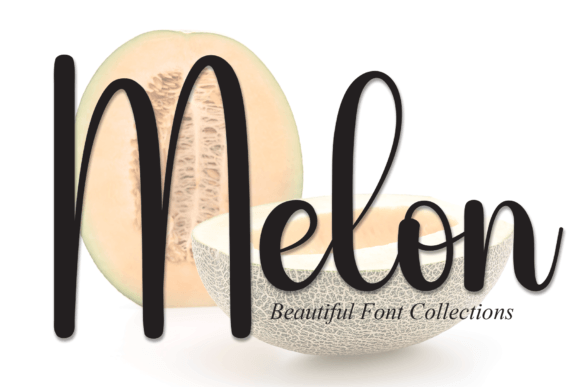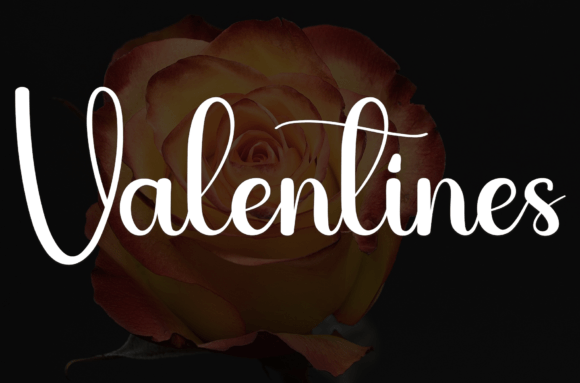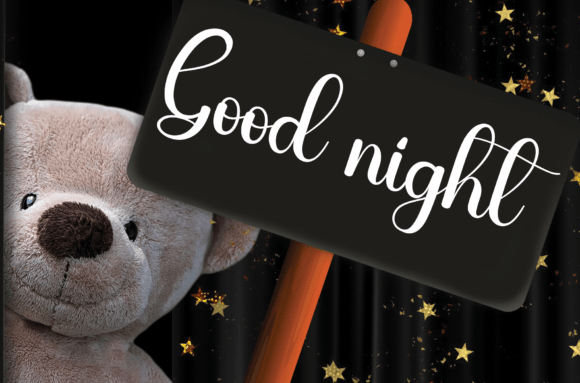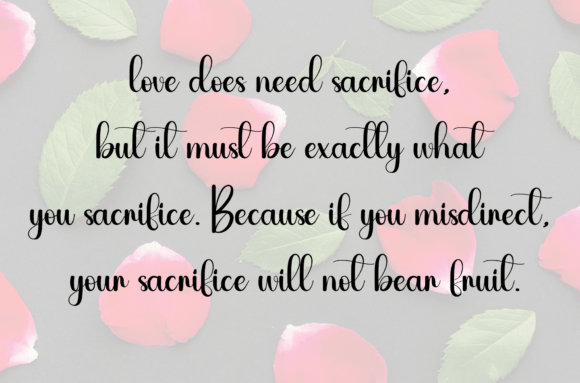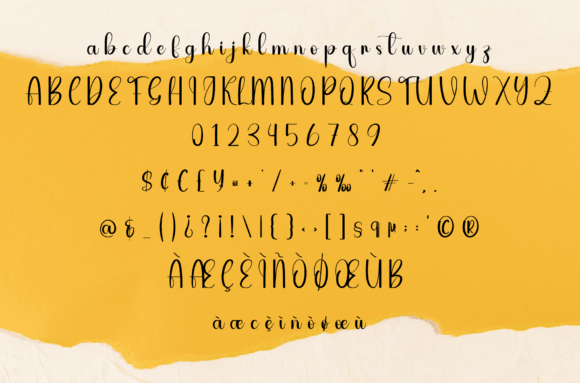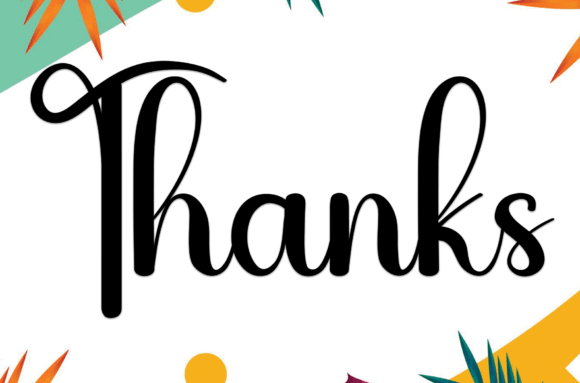
What Is Melon Font?
Melon is a sweet and friendly handwritten font designed to bring a cheerful and fun feel to any project. With its smooth curves and clean strokes, this font feels inviting and personal. Because it was carefully crafted, Melon makes your designs look polished and warm.
You’ll love how easily it transforms basic layouts into eye-catching and memorable creations.
Melon is incredibly versatile, so you can use it across many applications. For example, it looks lovely on wedding invitations. Whether you prefer classic designs or more modern styles, this font adds a soft, romantic feel that stands out.
It also works perfectly on greeting cards. If you want your messages to feel sincere and heartfelt, Melon delivers them beautifully.
Additionally, this font is ideal for social media graphics. Whether you are sharing quotes, promoting products, or announcing special events, Melon’s friendly style will help your posts get noticed.
Melon is also great for product packaging and labels. Its cute and approachable look helps products feel more special and appealing. From personal crafts and small business branding to digital templates, this font adapts seamlessly to any design project.
Why Should You Choose Melon Font?
There are many reasons to add Melon to your font collection. First, it stays clear and readable at any size. Whether you use it for bold headings or small text, every letter keeps its balanced, smooth look.
It pairs beautifully with serif or sans-serif fonts, so you can create cohesive, professional designs with ease.
Designers love how polished and joyful it looks, saving time while delivering impressive results.
Melon Font brings life, warmth, and personality to your projects. For example, if you want your designs to feel friendly and inviting, this font makes it effortless.
Even minimalist layouts come alive with its playful curves and smooth lines. Whether you are creating wedding invitations, product packaging, or social media posts, your designs will feel cohesive and vibrant.
Using a high-quality handwritten font also shows your attention to detail and helps you make a positive impression.
Melon is much more than just another font—it’s a creative tool that adds joy and charm to everything you create. From wedding invitations and cards to branding and digital graphics, this font adapts beautifully and elevates your work.